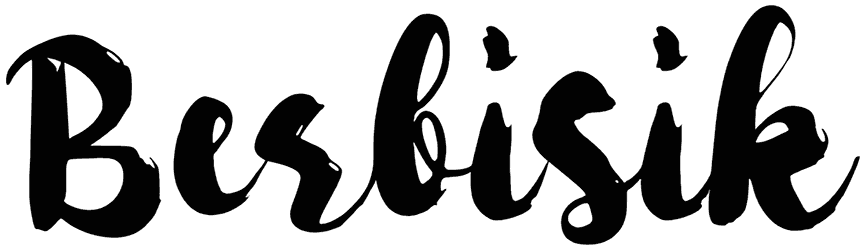
b Berbisik Font
Since choosing the right font for designing graphic content would be difficult and confusing for artists, we have provided a mind-blowing script font, such as b Berbisik font, for you to save your time and energy.
This magical brush font comes with rounded and crooked characters, thus it can boost the vibe of personalization, professionalism, momentum, or drama in your flyers, book covers, magazines, logos, or product packaging.